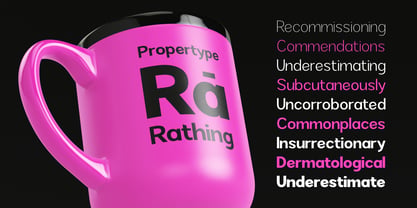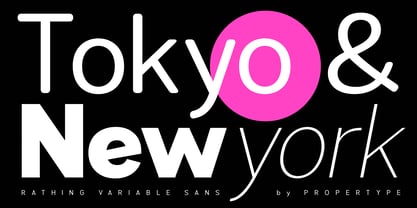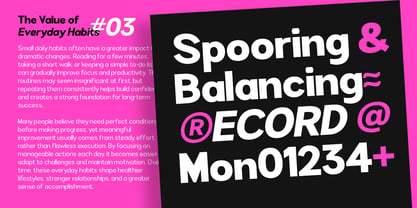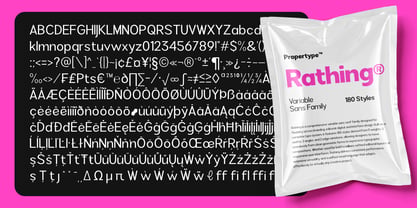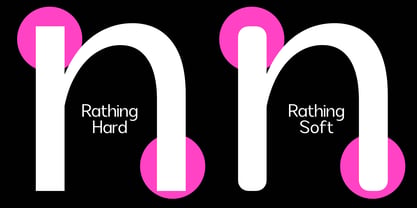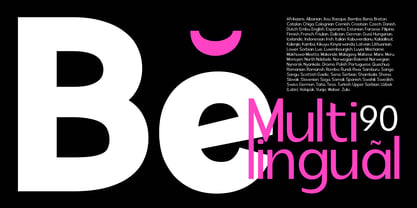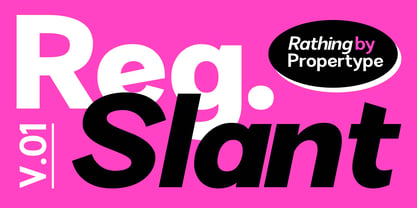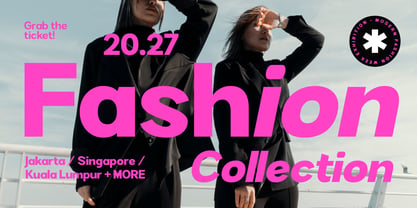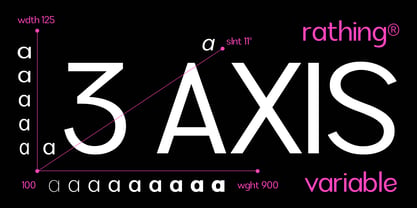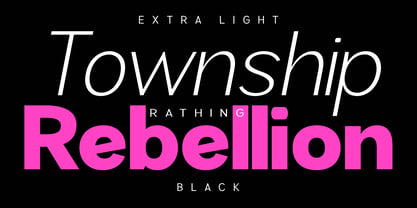
Rathing
by Propertype
The Rathing Font Family was designed by Nadia Auliana and published by Propertype. Rathing contains 68 styles. More about this family
Rathing is a modern sans-serif typeface designed to make a bold and memorable statement. Combining clean geometric construction with elegant curves and distinctive letterforms, it strikes a sophisticated balance between contemporary minimalism and expressive personality. Designed for impactful visual communication, Rathing excels in a wide range of creative applications.
Rathing is a good choice for branding, magazines, posters, advertising, print, packaging, headlines, web design, and more. Its strong presence and subtle details create a striking yet readable aesthetic across a wide range of creative applications.
Rathing includes 180 fonts, both upright and italic, ranging in color from light to black. It also includes one variable font. OpenType features enable the implementation of typography such as ligatures and support for multiple languages.